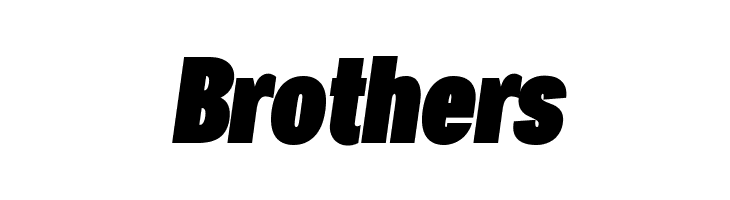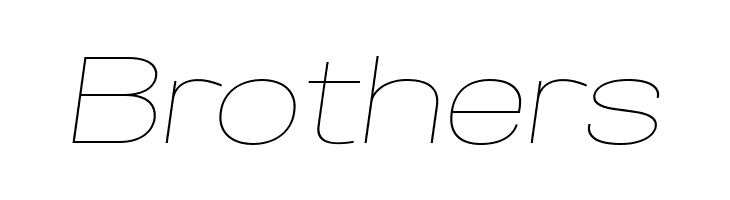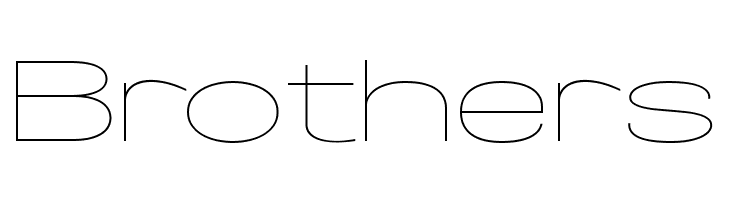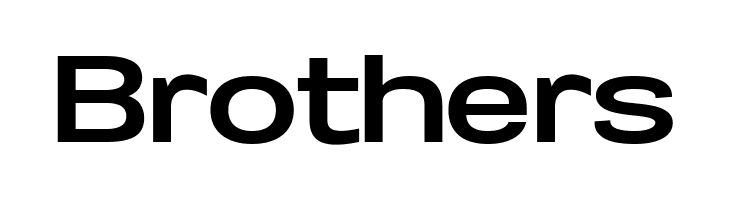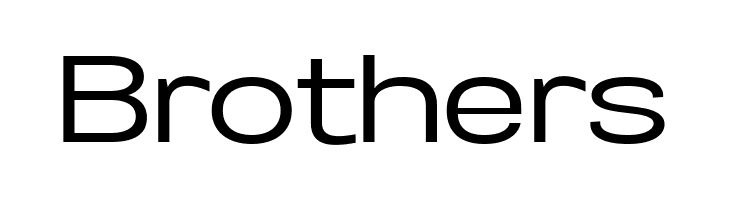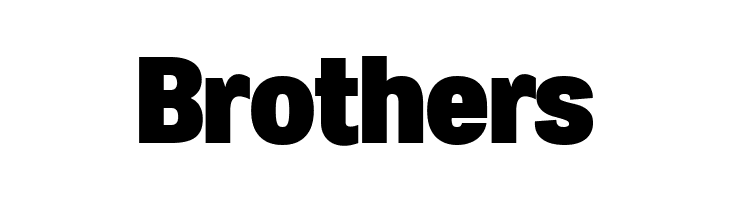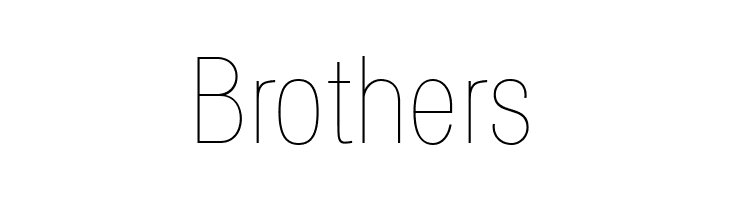
( Måns Grebäck - www.mansgreback.com )
A bold, condensed font with a strong, modern style.
( Måns Grebäck - www.mansgreback.com )
A bold, condensed, and italic font with a strong, modern style.
( Måns Grebäck - www.mansgreback.com )
A bold, condensed font with tight spacing and a modern style.
( Måns Grebäck - www.mansgreback.com )
A bold, italicized, and condensed font ideal for impactful headlines.
( Måns Grebäck - www.mansgreback.com )
A modern, condensed sans-serif font with a light weight and tight spacing.
( Måns Grebäck - www.mansgreback.com )
A modern, condensed, light italic font with clean lines and a sleek design.
( Måns Grebäck - www.mansgreback.com )
A modern, condensed font with excellent readability and a professional appearance.
( Måns Grebäck - www.mansgreback.com )
A modern, condensed, medium-weight italic font with a sleek design.
( Måns Grebäck - www.mansgreback.com )
A sleek, modern, and condensed thin font with a minimalistic design.
( Måns Grebäck - www.mansgreback.com )
A sleek, thin, and italic font with a modern, condensed style.
( Måns Grebäck - www.mansgreback.com )
A bold, expanded font with thick strokes and wide letterforms.
( Måns Grebäck - www.mansgreback.com )
A bold, expanded, and italic font with a modern and dynamic style.
( Måns Grebäck - www.mansgreback.com )
A bold, expanded font with clean lines and a modern appearance.
( Måns Grebäck - www.mansgreback.com )
A bold, italicized, and expanded font with a modern and dynamic style.
( Måns Grebäck - www.mansgreback.com )
A modern, expanded sans-serif font with light weight and low contrast.
( Måns Grebäck - www.mansgreback.com )
A modern, expanded, light italic font with a sleek and airy design.
( Måns Grebäck - www.mansgreback.com )
A modern, expanded sans-serif font with a clean and professional appearance.
( Måns Grebäck - www.mansgreback.com )
A modern, expanded italic font with medium weight and clean lines.
( Måns Grebäck - www.mansgreback.com )
A modern, expanded-width font with thin, geometric strokes.
( Måns Grebäck - www.mansgreback.com )
A modern, expanded, thin italic font with sleek, elongated letterforms.
( Måns Grebäck - www.mansgreback.com )
A bold, extra-expanded font with a modern geometric style.
( Måns Grebäck - www.mansgreback.com )
A bold, extra-expanded italic font with a modern and dynamic style.
( Måns Grebäck - www.mansgreback.com )
A bold, extra-expanded font with modern, clean lines and wide letterforms.
( Måns Grebäck - www.mansgreback.com )
A bold, extra-expanded italic font with a modern and dynamic style.
( Måns Grebäck - www.mansgreback.com )
An ultra-light, extra-expanded font with a sleek, modern design.
( Måns Grebäck - www.mansgreback.com )
A modern, extra expanded, light italic font with a sleek and elegant style.
( Måns Grebäck - www.mansgreback.com )
A modern, extra-expanded sans-serif font with a clean and bold appearance.
( Måns Grebäck - www.mansgreback.com )
A modern, extra-expanded italic font with medium weight and sleek design.
( Måns Grebäck - www.mansgreback.com )
An ultra-thin, extra-expanded font with a modern, geometric style.
( Måns Grebäck - www.mansgreback.com )
A thin, extra-expanded italic font with a modern and elegant style.
( Måns Grebäck - www.mansgreback.com )
A bold, modern font with strong, uniform strokes and geometric shapes.